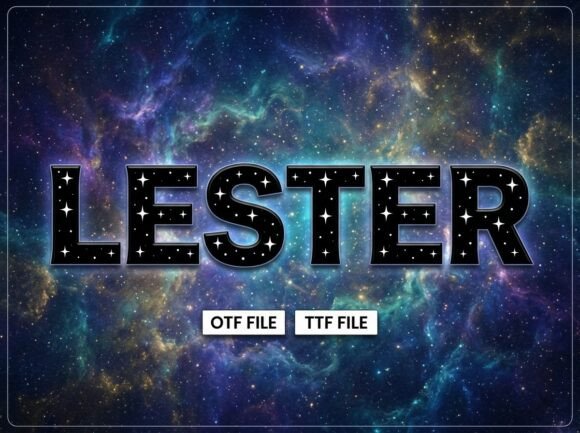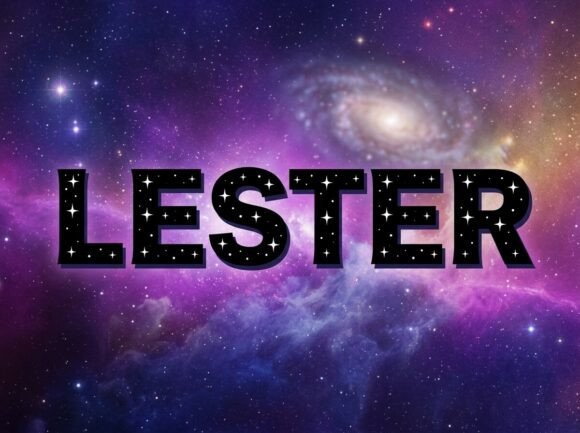
Introduction to Lester Font
Have you ever been working on a creative project and suddenly, you hit a roadblock because you’re struggling to find the perfect font to elevate your design? You’ve tried countless options, but nothing seems to capture the essence of your vision. Well, we’ve got some exciting news for you – your search is over! Introducing Lester Font, a stunning decorative display font that’s sure to take your design to the next level.
Lester Font is more than just a font – it’s a statement piece that adds a touch of sophistication and elegance to any design. With its unique artistic elements and strong visual personality, it’s the perfect addition to any designer’s toolkit. Whether you’re working on a bold headline, artistic logo, or creative packaging, Lester Font is the perfect design resource to help you achieve a professional and polished finish.
Lester Font
- High-quality design resource with a unique, modern aesthetic
- Perfect for use in logos, branding, and other creative projects where a modern, sleek look is desired
- Includes a comprehensive character set, including uppercase and lowercase letters, numbers, and punctuation marks
Honest Review: Lester Font
Here are some things that work well for Lester Font:
- ✨ High quality and crisp typography
- ✨ Transparent background, making it easy to work with
- ✨ Versatile design, suitable for various creative projects
- ⚠️ Limited character set, which might be a concern for those who need to type specific characters
- ⚠️ Not as many font styles as I would have liked, which might limit its use in certain designs
Overall, I’m quite impressed with Lester Font. It’s a solid addition to any designer’s toolkit, and the fact that it’s free makes it an even more attractive option. While it may not be perfect, its strengths far outweigh its limitations, making it a great choice for my next creative project.
Tips for Getting the Most Out of Lester Font
Use Lester Font on a transparent background to add a creative touch to your design. This font is perfect for creating eye-catching headings and titles. You can also use it in combination with other design elements to create a unique and high-quality design.
Lester Font is a versatile design resource that can be used in a variety of creative projects. Some common use cases include:
- Creating a logo for a business or brand
- Designing a brochure or flyer
- Creating a presentation or slideshow
- Designing a website or app
Alternatives to Lester Font
Montserrat Font is a popular sans-serif typeface perfect for creative projects that require a clean and modern look. It features a transparent background, making it ideal for designs with minimalistic backgrounds. When to use: use for headings and titles in designs that require a touch of sophistication. How it compares to Lester Font: Montserrat Font has a more geometric and structured look compared to Lester Font’s more rounded edges.
Open Sans Font is a free download and a versatile sans-serif typeface suitable for a wide range of design projects. It features a high quality and clean design, making it ideal for designs that require a neutral background. When to use: use for body text in designs that require a clear and easy-to-read font. How it compares to Lester Font: Open Sans Font has a more neutral look compared to Lester Font’s more playful edges.